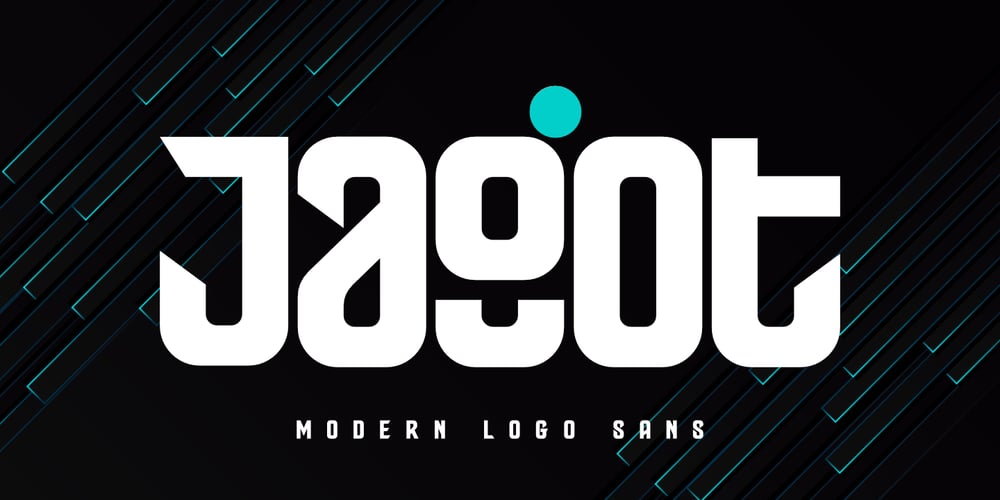
Jagot
Jagot font
Jagot Font Family was designed by Saiful Anwar and published by Sealoung. Jagot contains 1 styles and family package options. Jagot – Modern Logo SansJagot Modern Logo Sans is a modern and versatile font designed for contemporary branding. With its clean lines and balanced proportions, this typeface is perfect for creating impactful logos, headlines, and editorial designs. Its minimalist style ensures readability while exuding sophistication.Key Features:Modern Aesthetic: Combines geometric precision with elegant curves for a timeless look.Versatile Usage: Ideal for logos, branding, packaging, and web design.Multiple Weights: Available in various weights to suit diverse design needs.Multilingual Support: Includes characters for extended language coverage.Why Choose Jagot Modern Logo Sans?Elevate your designs with a font that blends modernity and professionalism. Whether you’re crafting a cutting-edge logo or a sophisticated headline, Jagot delivers impeccable results.Get Jagot Modern Logo Sans today and make your designs stand out!